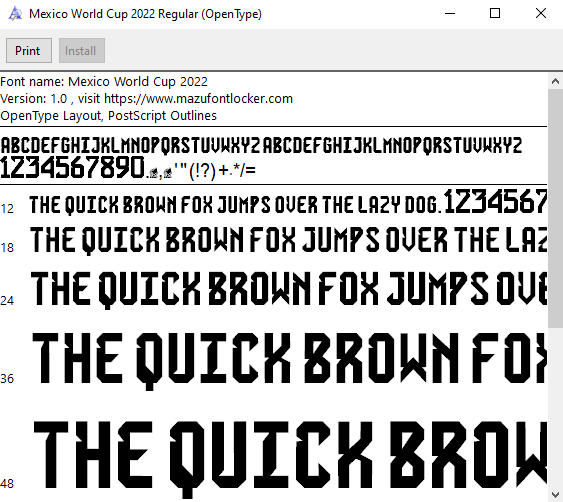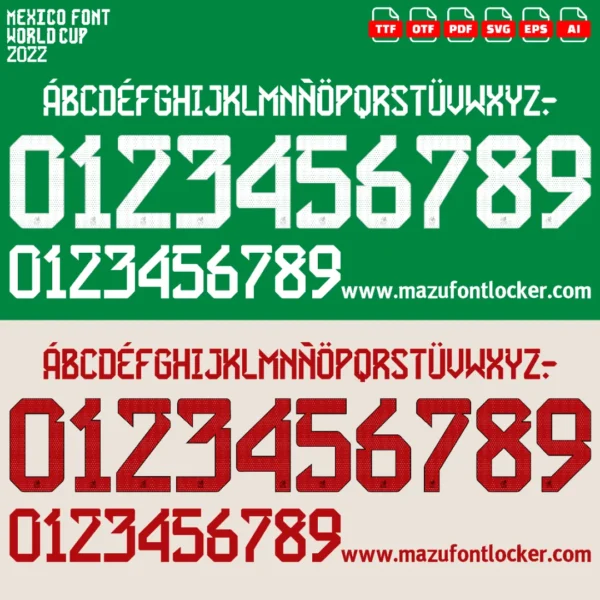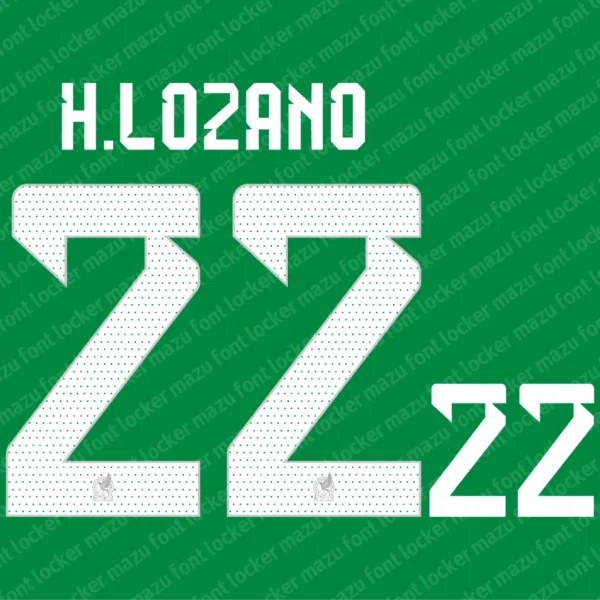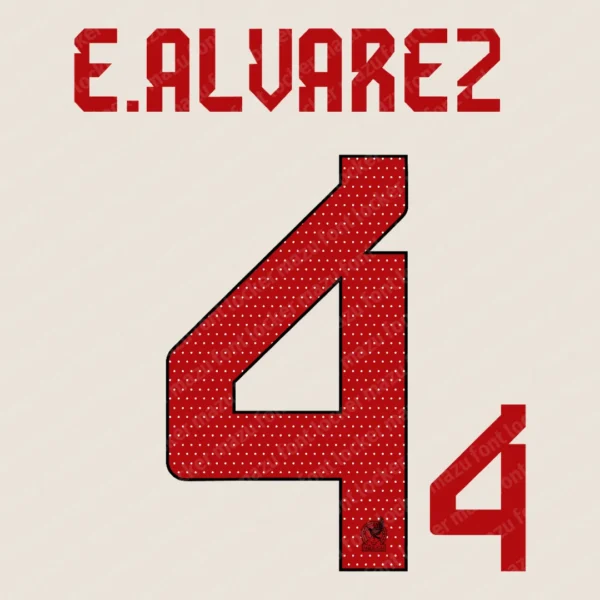
Mexico World Cup 2022 Font Vector – Stunning El Tri Masterpiece
This font captures the commanding, thunderous, steel-sharp, and precision-engineered lettering that perfectly embodies Mexico’s iconic national identity, proud Mexican heritage, never-back-down mentality, and raw football power — delivering unmatched authenticity, premium quality, explosive energy, and elite World Cup & international dominance for professional jersey mockups, dynamic football graphics, premium sports branding, passionate fan creations, and high-end design projects.
Mexico World Cup 2022 Font Vector – Iconic Green, White & Red Typeface
The Mexico World Cup 2022 Font Vector is a premium typeface that accurately recreates the official match lettering worn by the Mexico national team during the 2022 FIFA World Cup in Qatar. This high-quality vector font kit captures the bold, clean, and instantly recognizable typography that perfectly complements the team’s iconic green, white, and red identity.
Designed for professional designers, football enthusiasts, and passionate Mexico supporters, the Mexico World Cup 2022 Font Vector delivers exceptional authenticity for creating realistic jersey mockups, football merchandise, social media graphics, match posters, and custom fan artwork. Every character has been carefully recreated to match the powerful and precise visual style of one of CONCACAF’s most passionate national teams.
Why Choose Mexico World Cup 2022 Font Vector
This font stands out thanks to its precise vector construction and authentic national team styling. Every letter and numeral has been meticulously recreated to match the official shirt lettering used throughout the 2022 FIFA World Cup campaign. Whether you’re producing professional kit templates or creating eye-catching football content, the Mexico World Cup 2022 Font Vector delivers a genuine match-ready appearance.
The lettering featured in the Mexico World Cup 2022 Font Vector combines clean geometric lines with powerful modern proportions. The result is a premium and highly readable typeface that reflects Mexico’s fighting spirit, national pride, and passionate fanbase on the world stage.
• Complete uppercase A–Z alphabet and numbers 0–9 in authentic Mexico World Cup 2022 style
• Includes authentic federation crest glyph placement beneath player numbers
Mexico at the 2022 FIFA World Cup
The 2022 FIFA World Cup in Qatar was another memorable chapter for the Mexico national team as they competed with their signature passion and determination. Wearing their iconic green, white, and red colors, El Tri aimed to create unforgettable moments for their loyal supporters around the world.